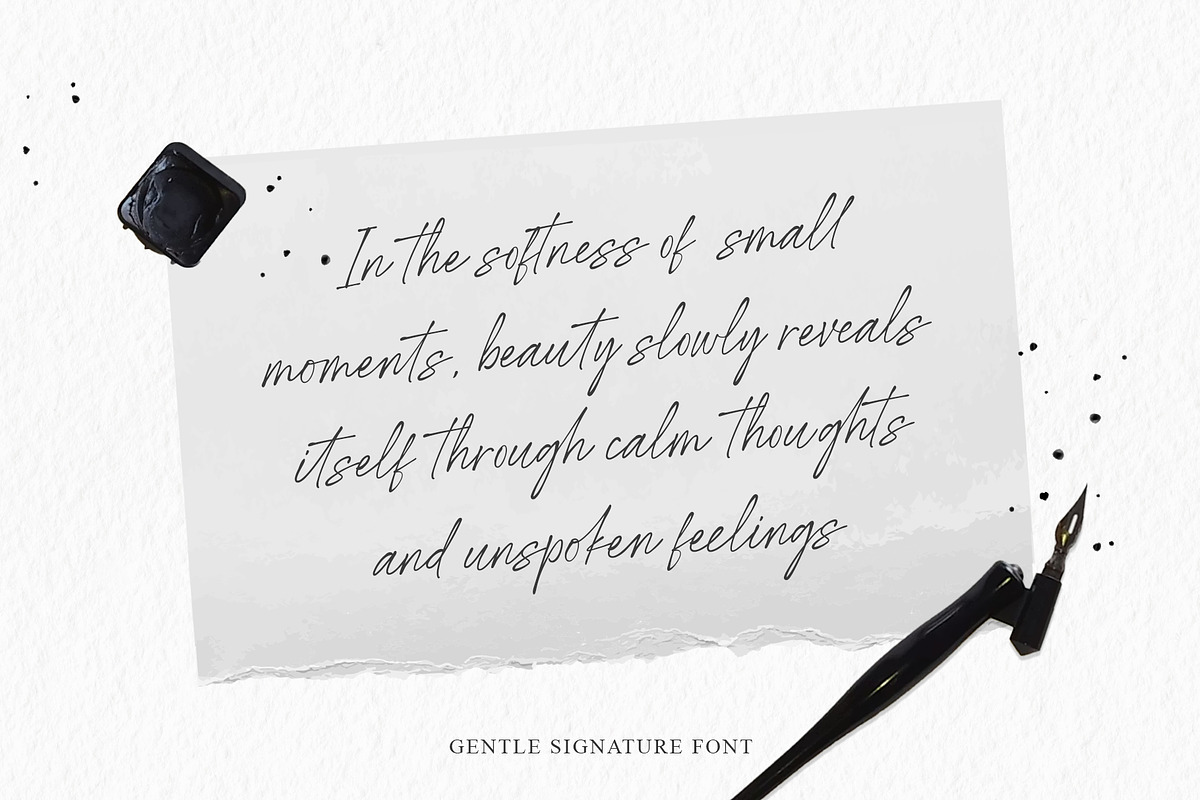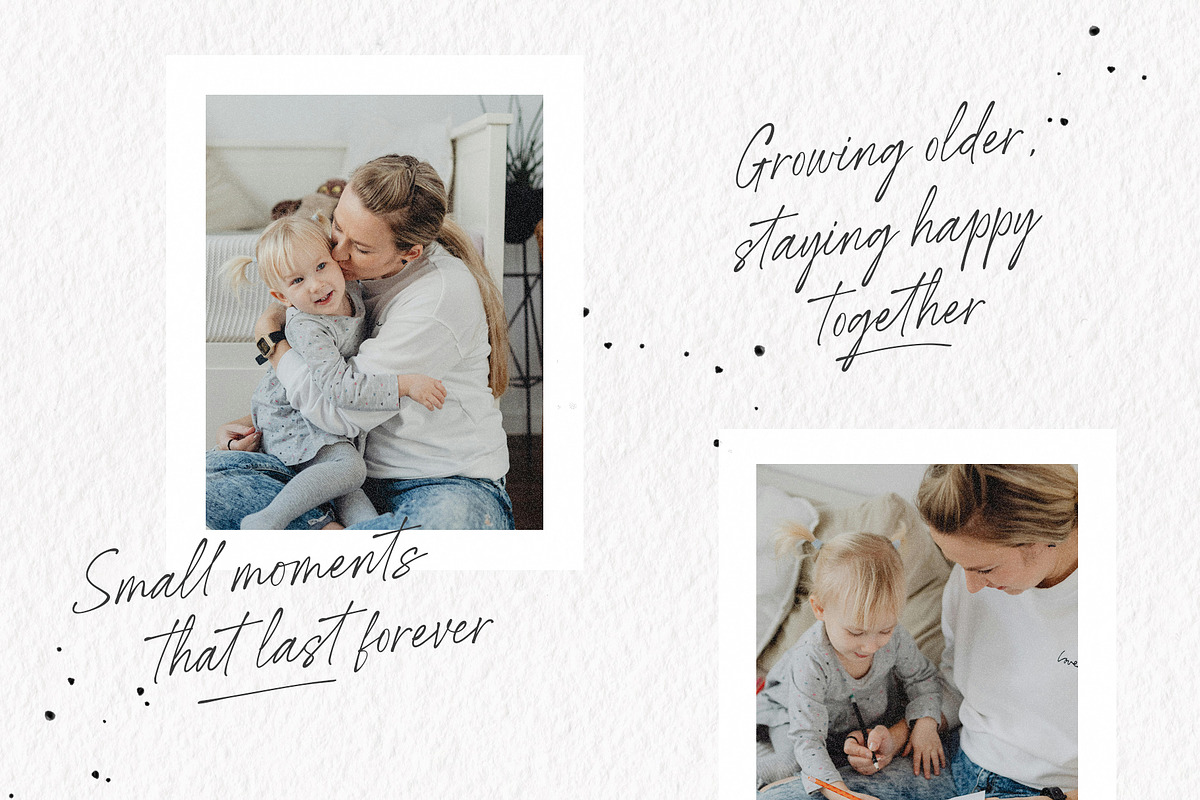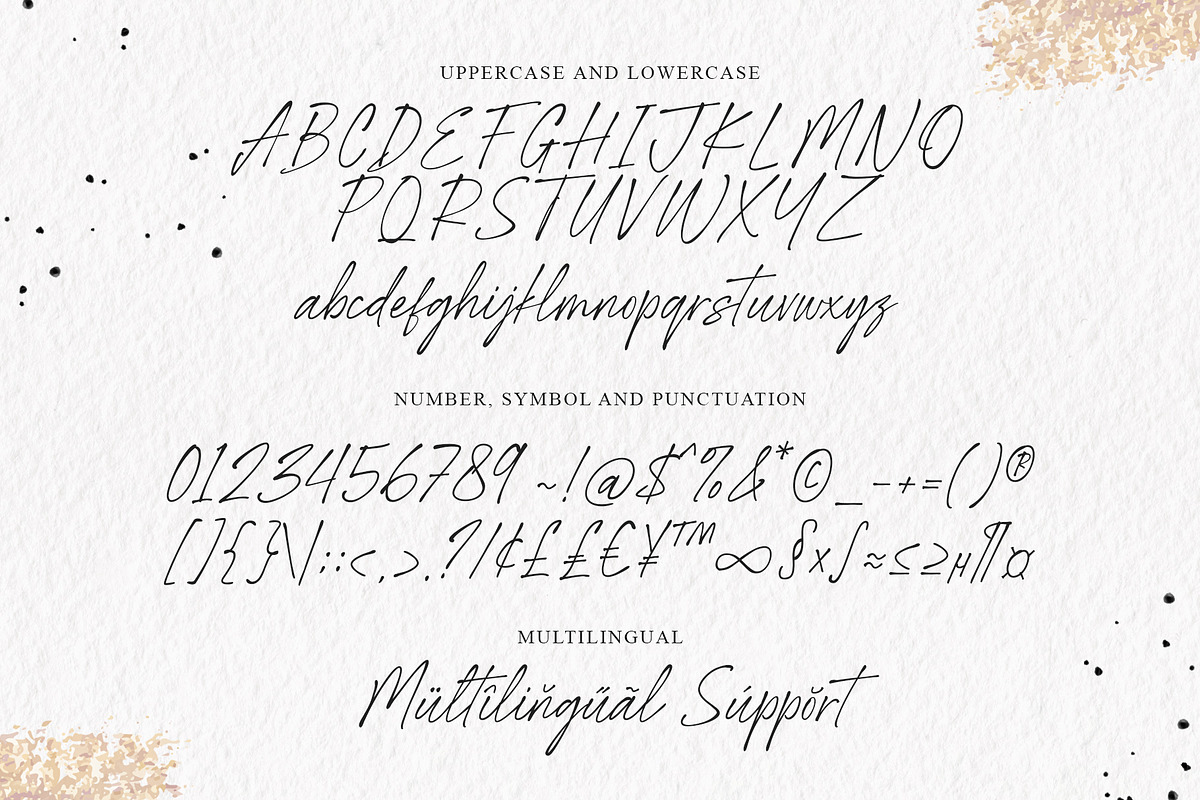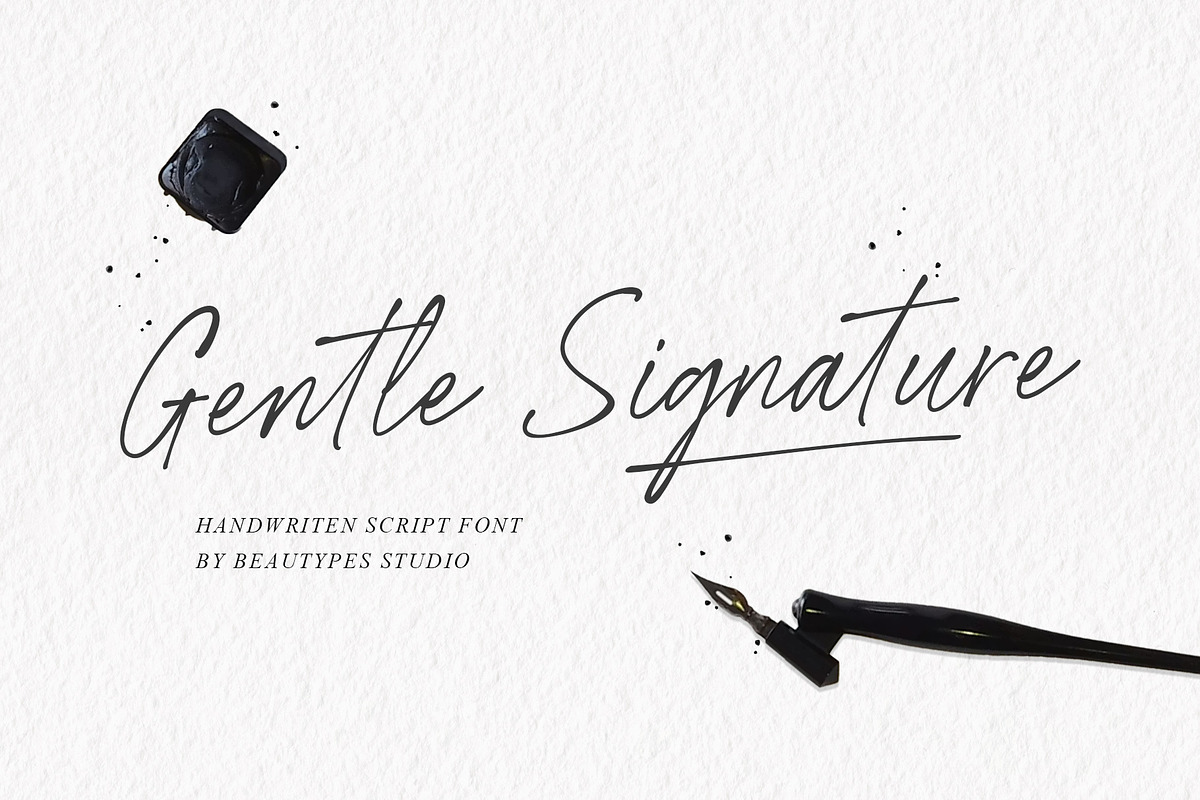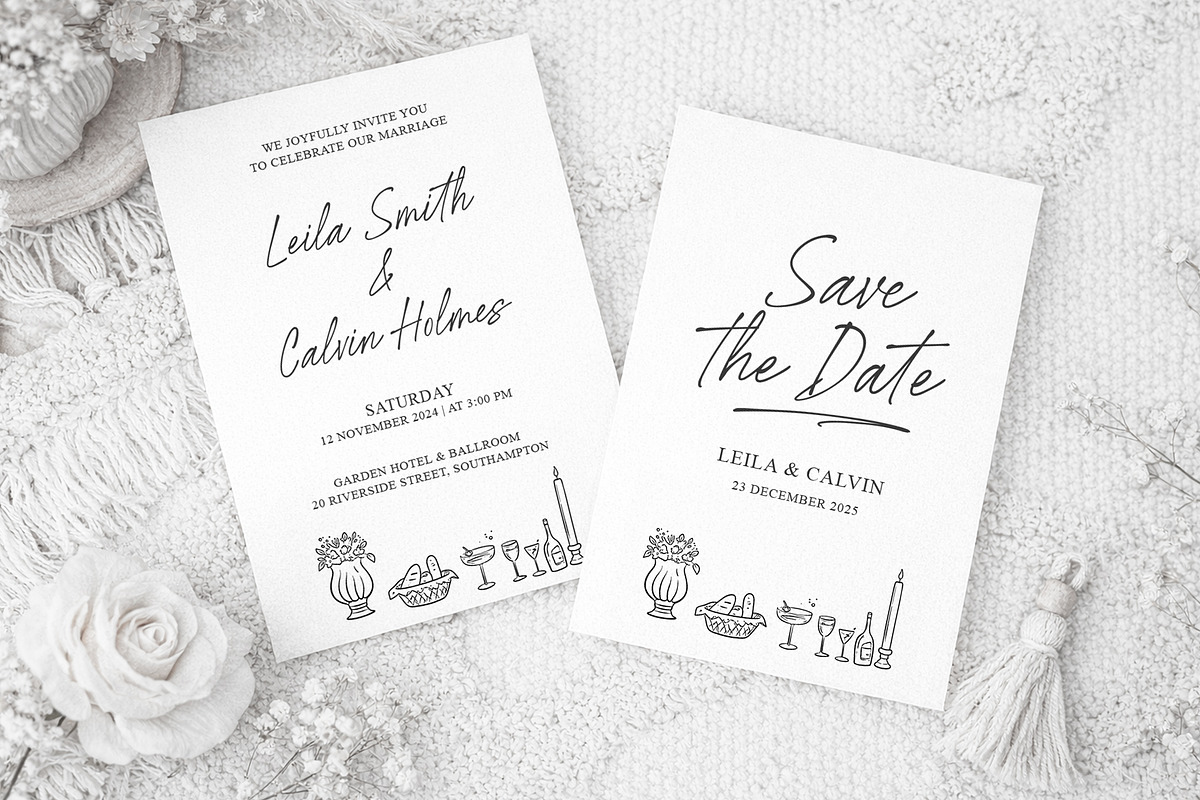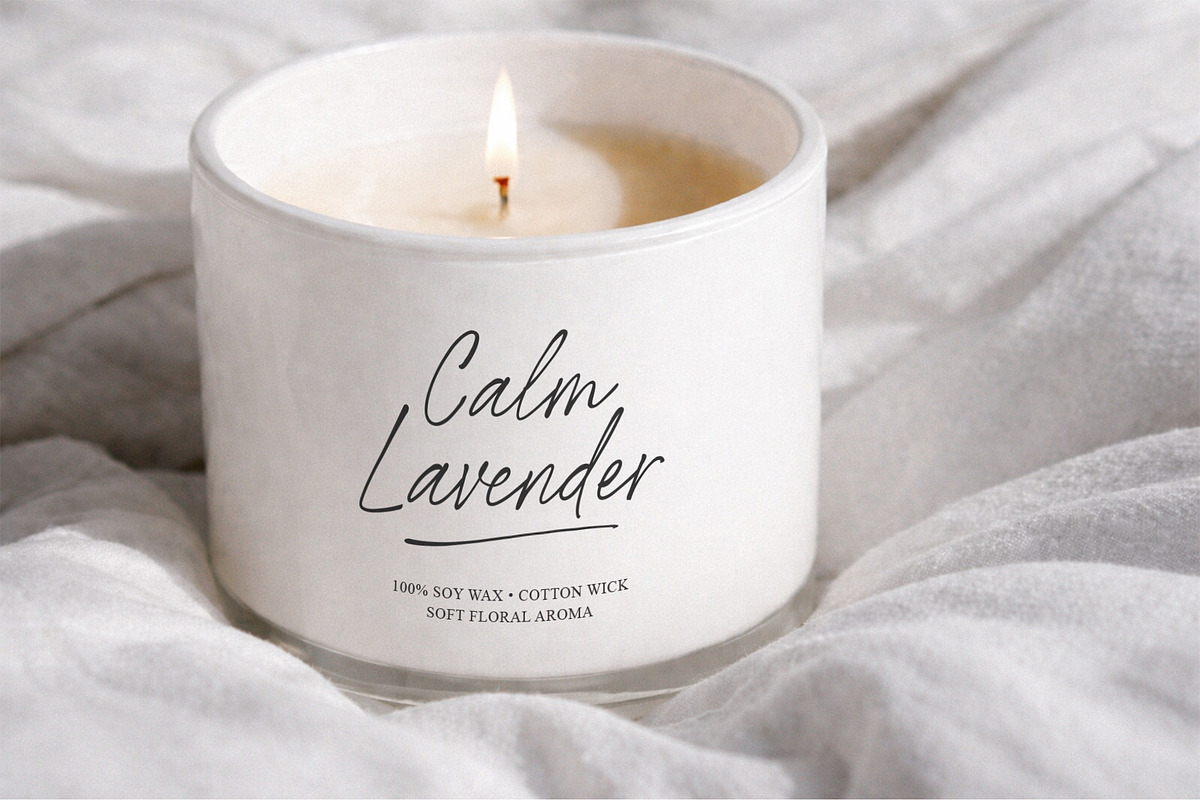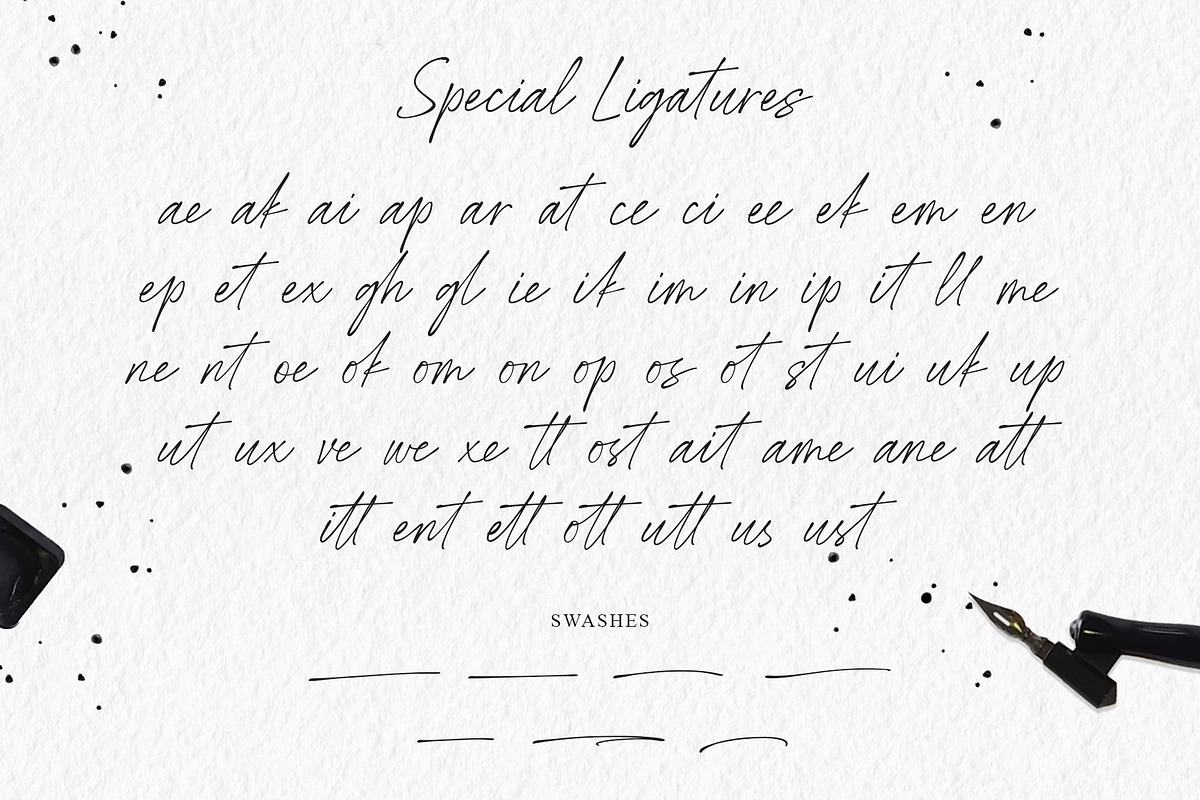
Gentle Signature
Gentle Signature is a soft and graceful handwritten script designed to feel personal, calm, and timeless. With its flowing strokes and natural signature style, this font captures the beauty of quiet moments and subtle emotions.
The letterforms are smooth and organic, giving a relaxed handwritten feel while staying clean and elegant. Each character connects naturally, creating a refined signature look that feels intimate and authentic.
Gentle Signature also comes with special ligatures and subtle swashes, allowing smoother letter connections and small decorative touches. These features help your text look more natural and expressive without overpowering the design.
Style highlights:
- Handwritten signature script
- Soft, clean, and minimal strokes
- Calm, romantic, and modern aesthetic
- Includes special ligatures for natural flow
- Subtle swashes for elegant accents
- Personal branding & logo signatures
- Quotes, poetry, and editorial layouts
- Wedding invitations & stationery
- Social media graphics & content creators
- Packaging, labels, and lifestyle products
If you’re looking for a font that feels gentle, personal, and effortlessly elegant, Gentle Signature is made to express emotions in the most subtle way.